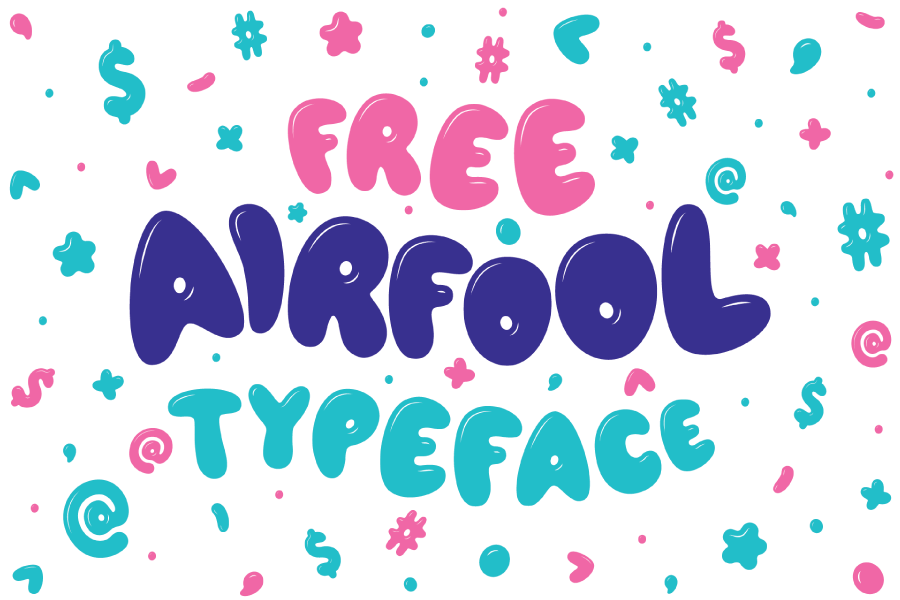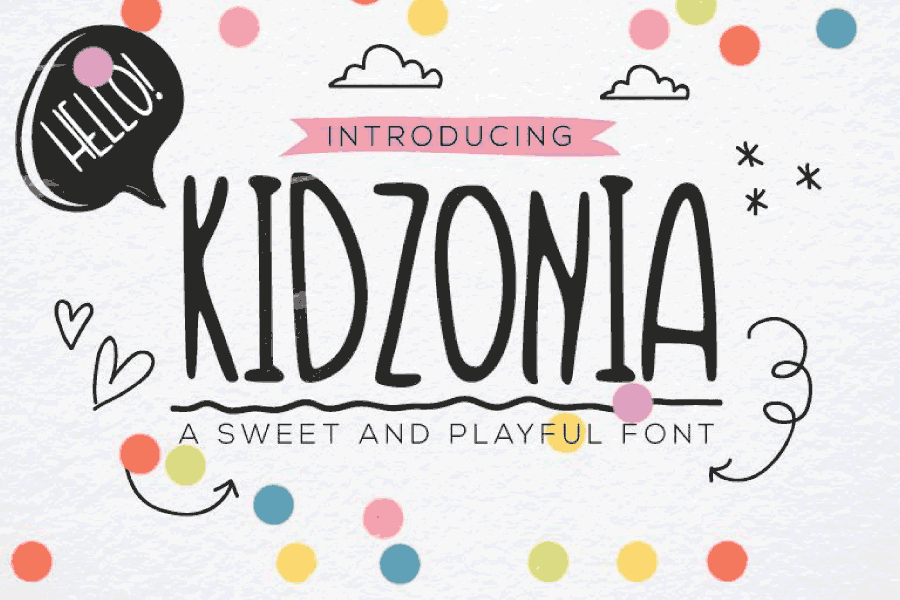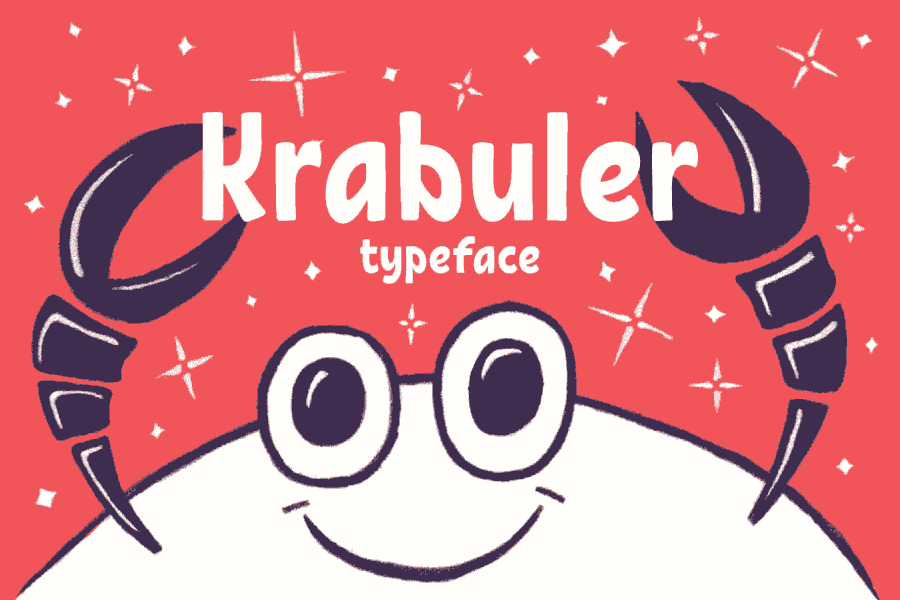
Awasome Free Playful Fonts References
Awasome Free Playful Fonts References. Viva la fiesta is a joyful trio of fonts with a playful and soft. 44 professional fantan playful fonts to download.
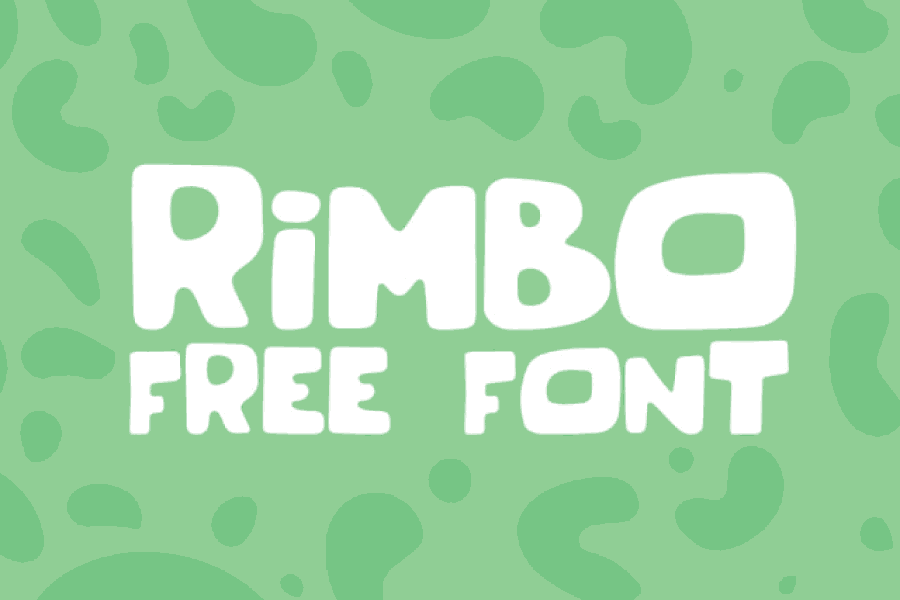
It incorporates capitalized and lowercase letters with numbers and glyphs. Looking for playful handwriting fonts? Best free playful fonts for download best free playful fonts for download working on a children’s book project?
Free this font takes up less space on a page, making them ideal for use on websites and in other digital applications. Like flyer, logo design, branding,. Click to find the best 493 free fonts in the fun playful style.
The Font Download Includes 3 Variations — Upright, Regular, And Slanted, Plus Inline And Dingbats — With Uppercase Letters, Numbers, Punctuation, And Multilingual Support.
Whether you’re looking for something fun and whimsical or. This font puts a smile on your projects and will inspire you to create something fun. Click to find the best 442 free fonts in the kids playful style.
We’ve Gathered Together Some Of The Best Playful Fonts Available Online, So You Can Find The Perfect One For Your Needs.